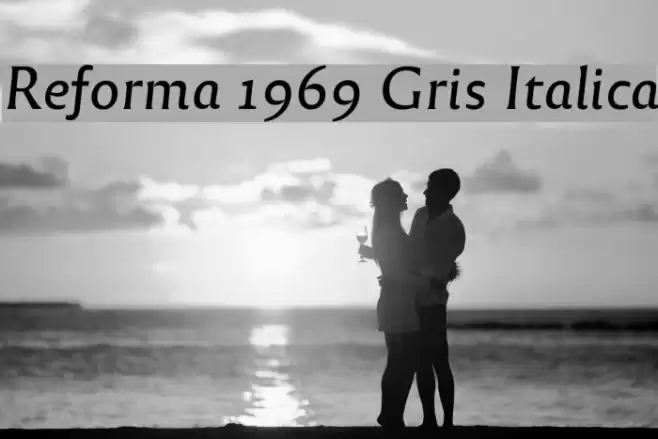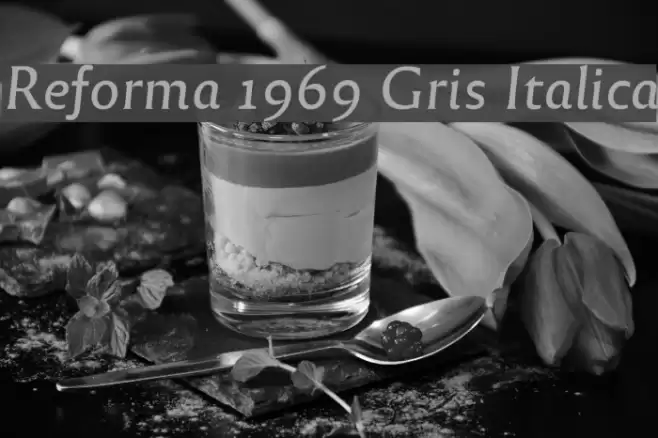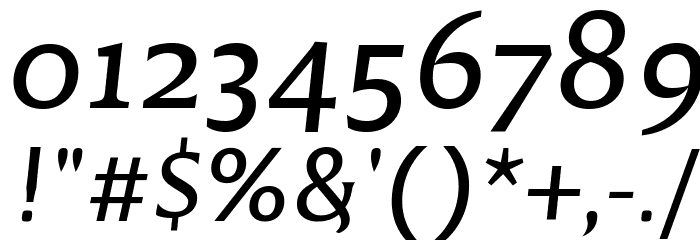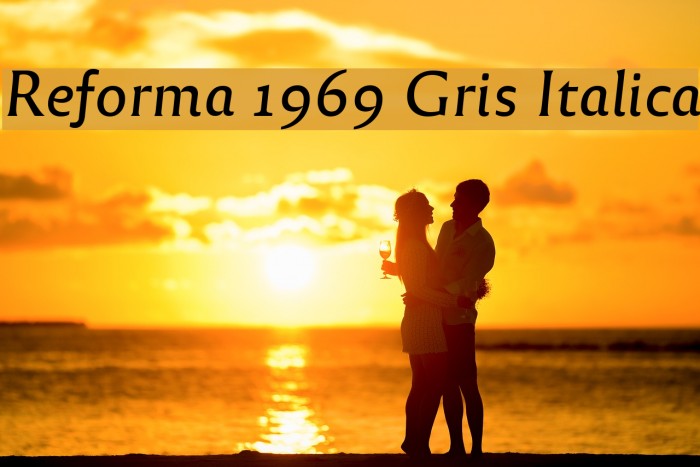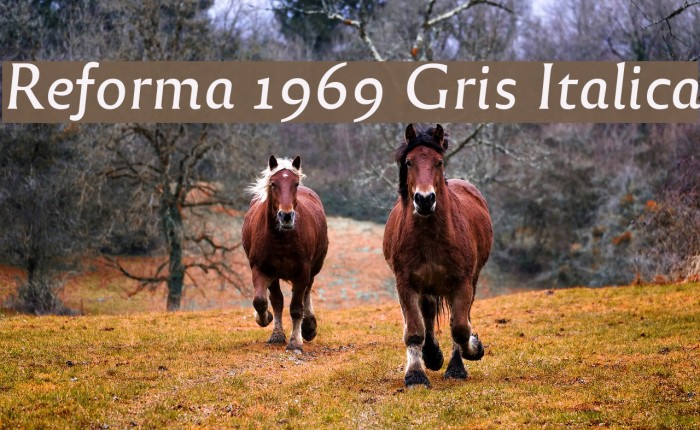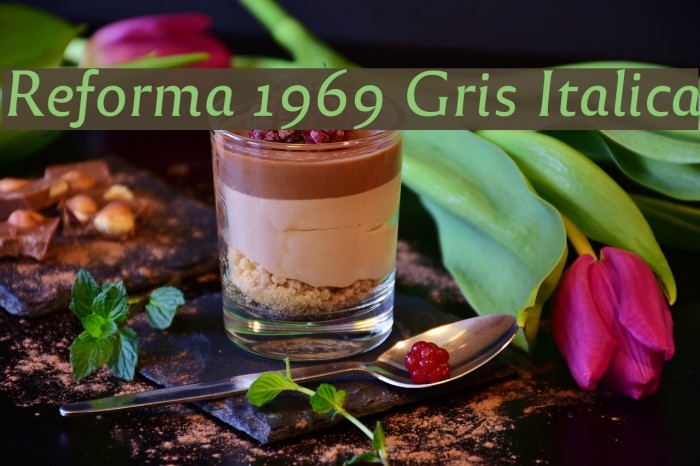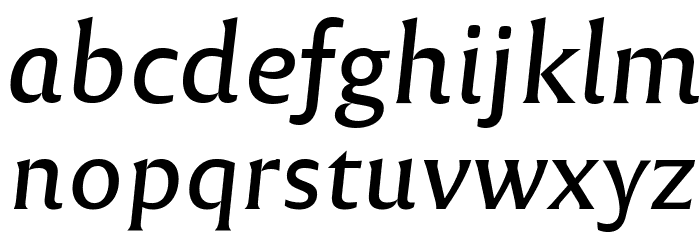
Reforma 1969 Gris Italica Font
Reforma 1969 Gris Italica Description
This font features a classic serif style with a modern twist, characterized by its elegant and slightly italicized form. The uppercase letters are bold and commanding, while the lowercase letters maintain a graceful flow. The numerals are clear and distinct, ensuring readability. Special characters are well-integrated, maintaining the overall aesthetic. The font's design is both timeless and versatile, suitable for a variety of applications. Its italic nature adds a dynamic feel, making it ideal for projects that require a touch of sophistication and style.
A modern serif font with an elegant italic style from Uncategorized fonts.